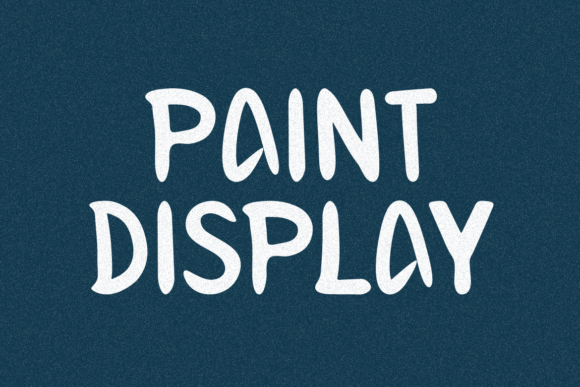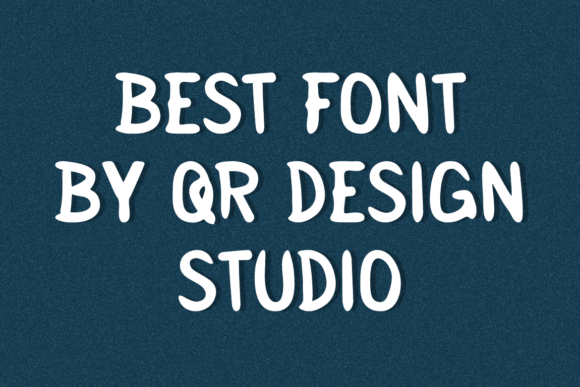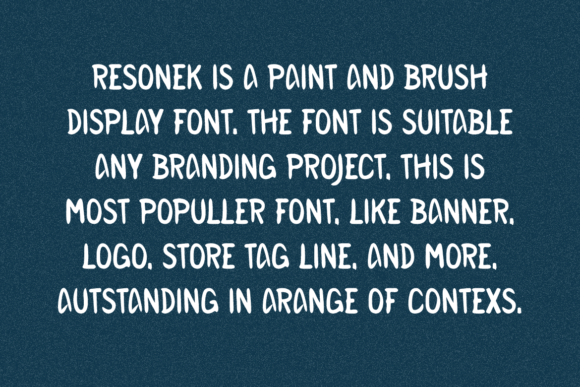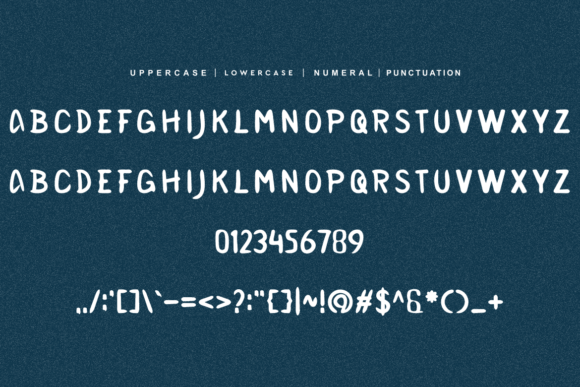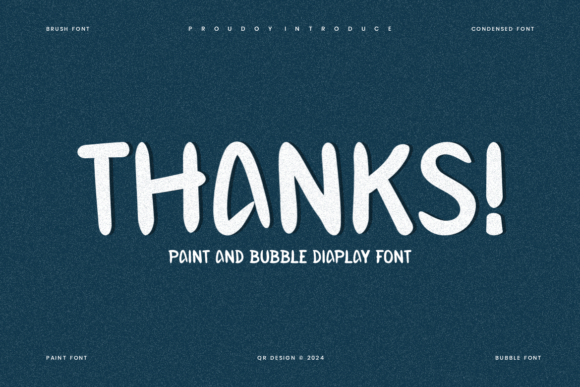
Introduction to Resonek Font Font
Fonts play a crucial role in design, and the Resonek Font font is a typeface that brings both character and versatility to any project. Whether you’re working on a branding project, a website, or a print design, the Resonek Font font offers a unique style that can elevate your work.
Resonek – Paint Font is a bold and authentic display font.
The font is suitable for any branding project, such as a logo, sport, and many more Outstanding in a wide range of contexts.
Key Features of Resonek Font Font
Why Choose Resonek Font Font?
The Resonek Font font is more than just a typeface – it’s a design tool that helps you communicate your message with style and clarity. Its unique character set and versatile design make it suitable for a wide range of applications, from elegant invitations to bold headlines.
With its carefully crafted letterforms and balanced proportions, the Resonek Font font ensures readability and visual appeal across all mediums.
What makes Resonek Font font special?
The Resonek Font font stands out with its unique design, exceptional readability, and versatility across various design applications.